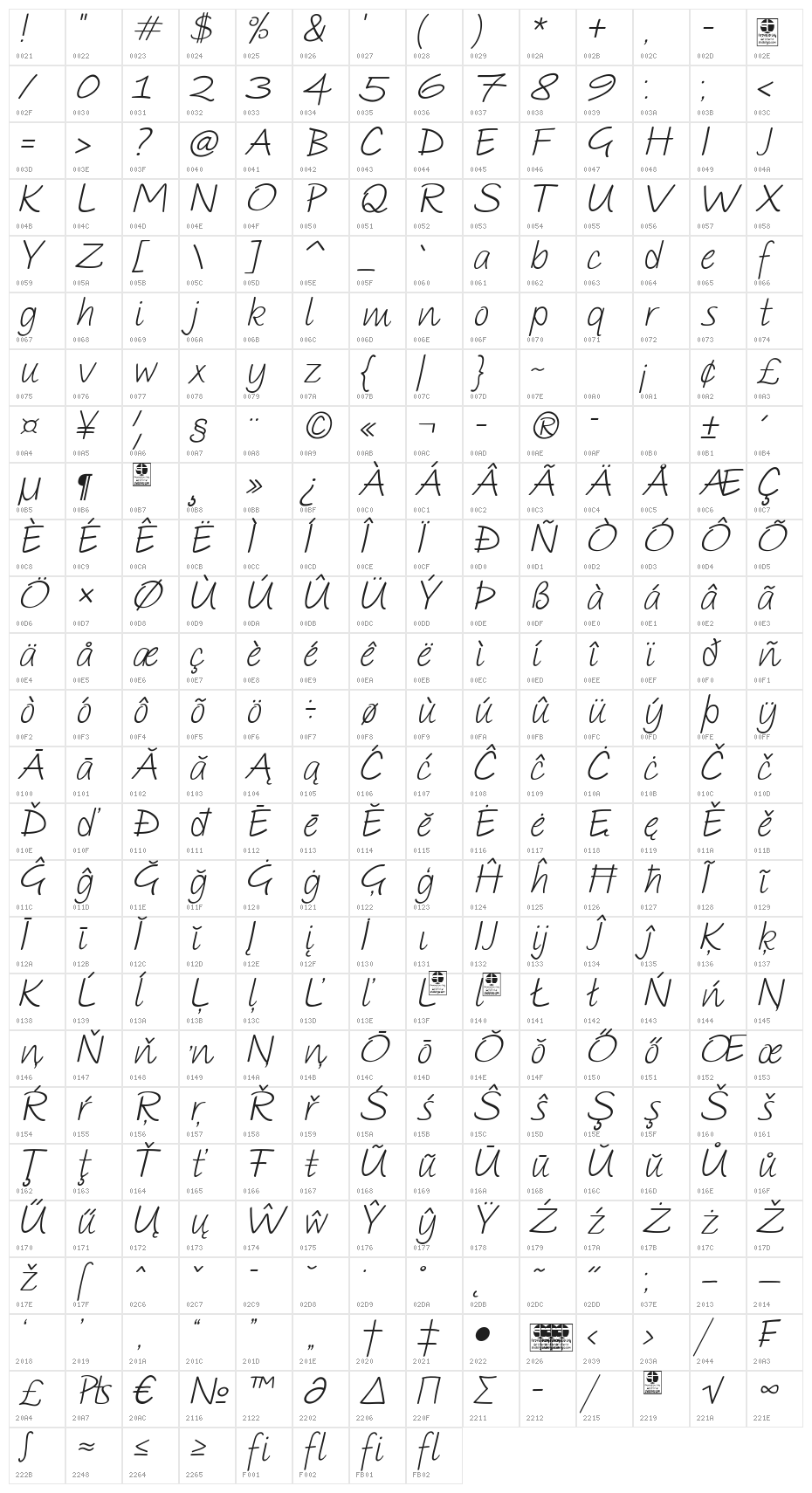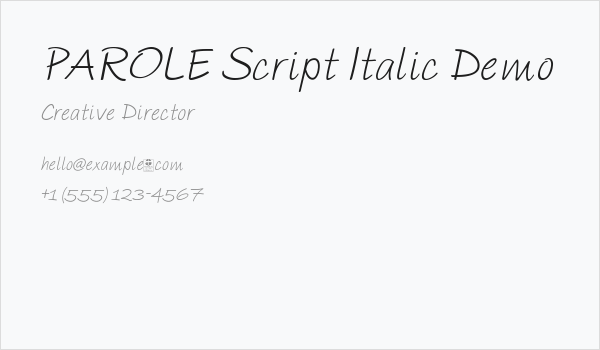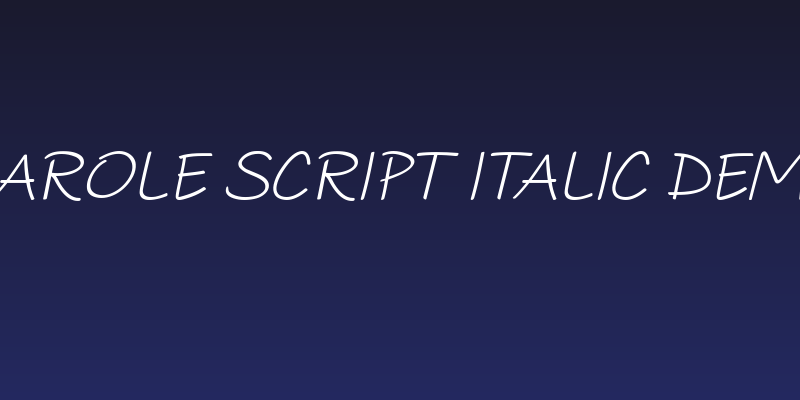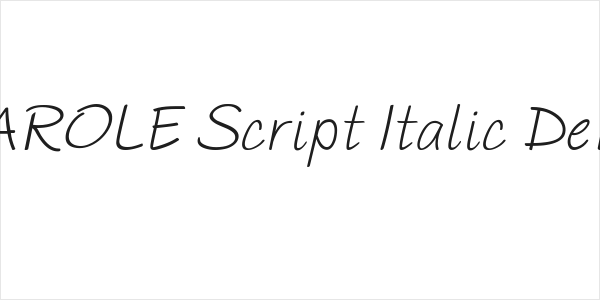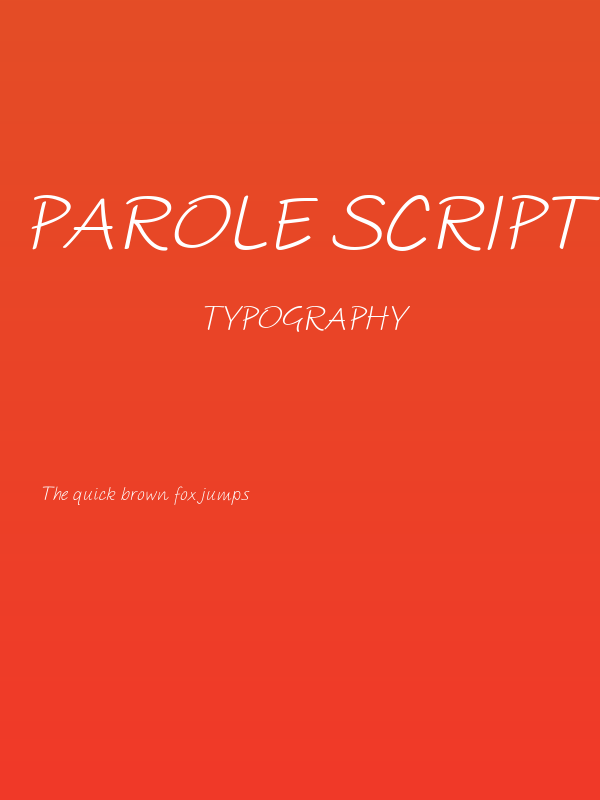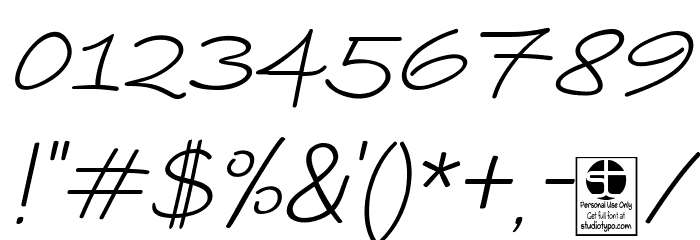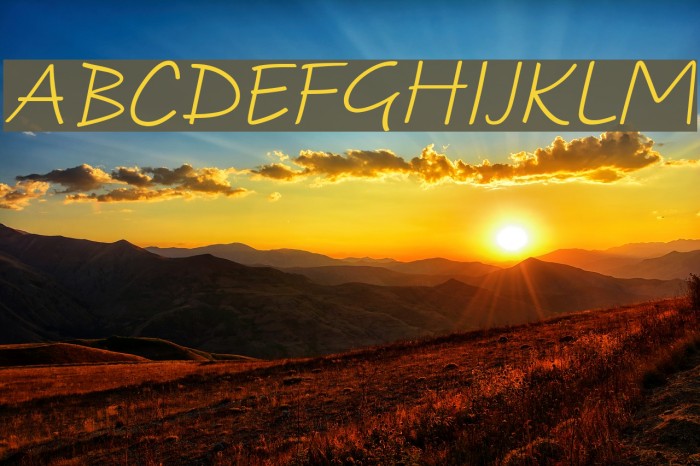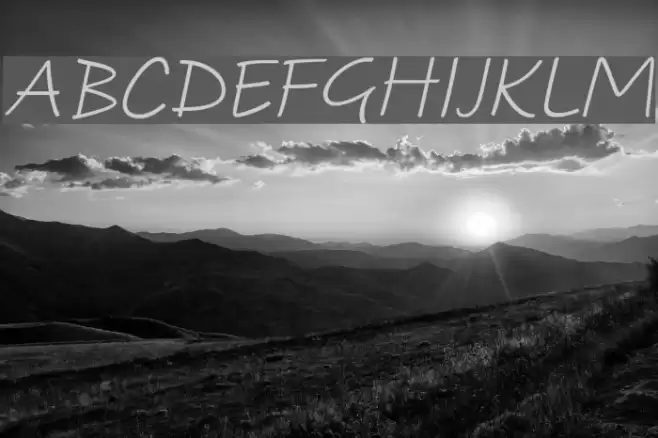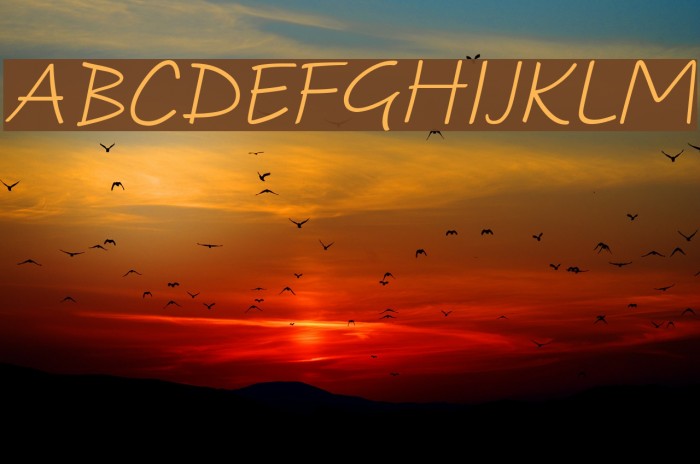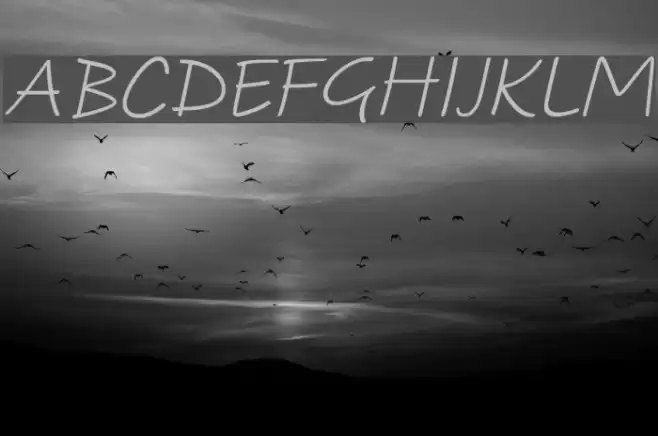
PAROLE Script Italic Demo Font
PAROLE Script Italic Demo Description
This font exhibits a fluid and elegant script style, characterized by its smooth, flowing lines and slight slant, giving it an italic appearance. The uppercase letters are distinct with a graceful touch, while the lowercase letters maintain a consistent rhythm and balance. The numerals are clear and legible, complementing the overall script style. Special characters are designed to blend seamlessly with the alphabet, maintaining the font's cohesive look. This font is ideal for adding a personal and sophisticated touch to any design.
| Overall Style | Elegant |
| Use Case | Logos, Invitations, Personal Branding |
| Proposed Projects | Ideal for wedding invitations, greeting cards, personal branding, and elegant logo designs. |